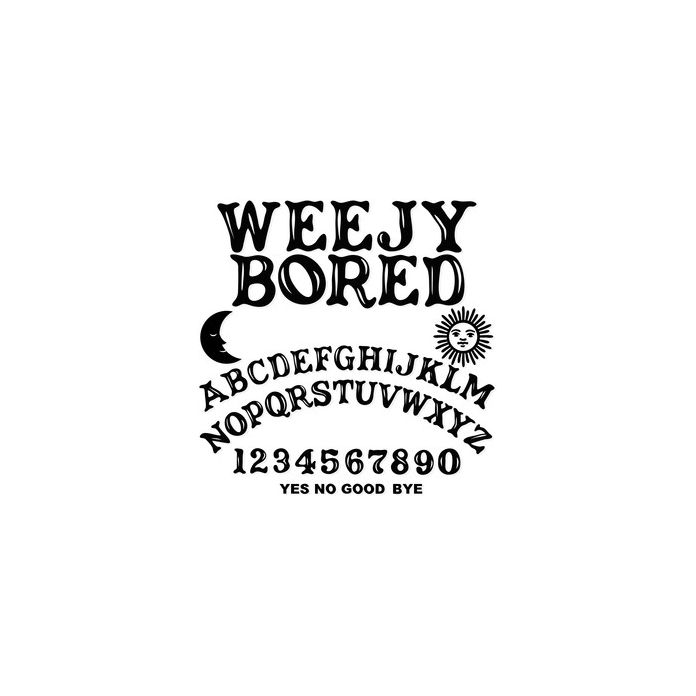
This hand drawn font can be used for any project! This font includes an uppercase, numbers set and bonus icons *Kerning, letting, and baseline may need to be adjusted for desired effect.